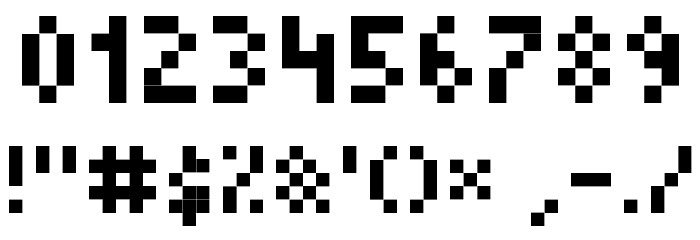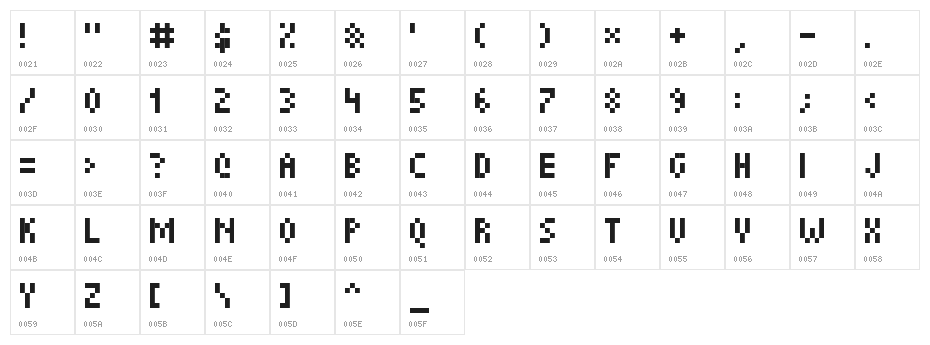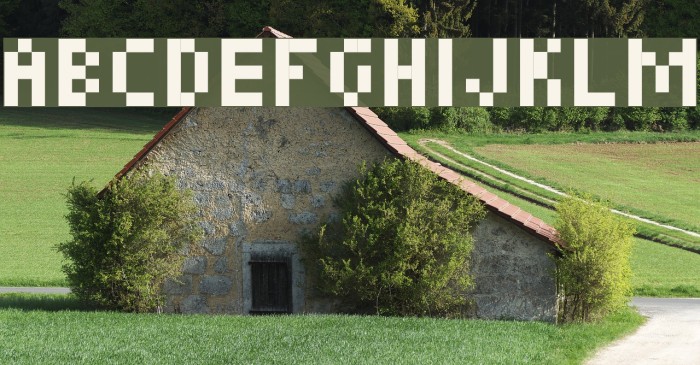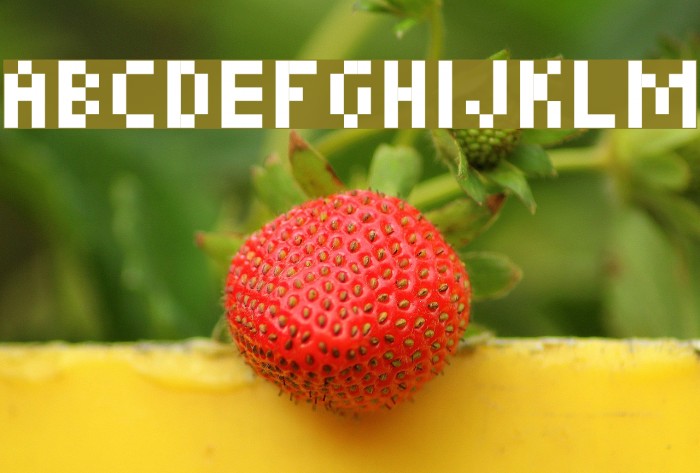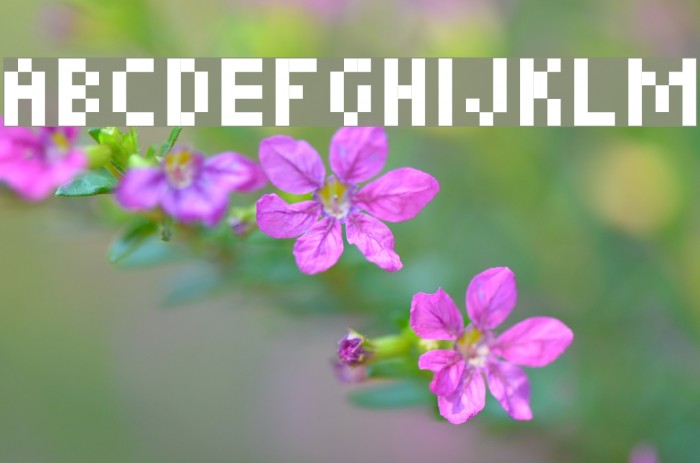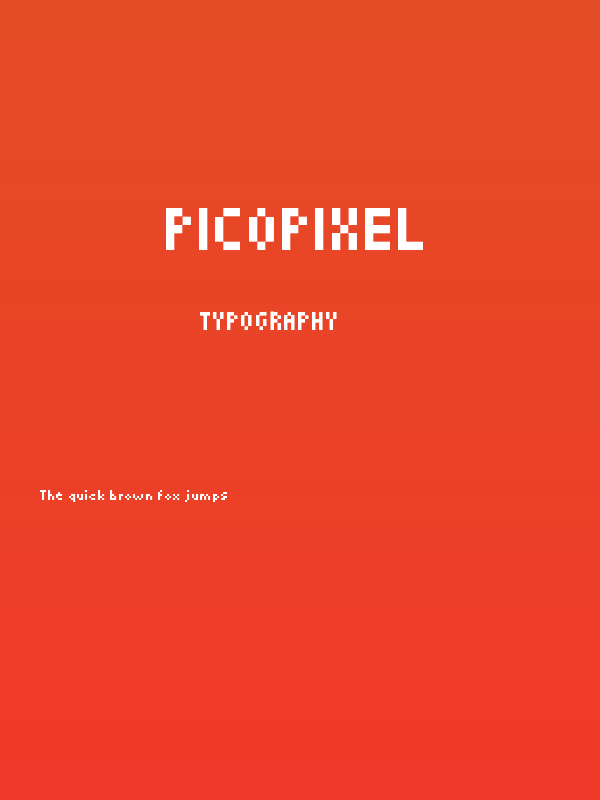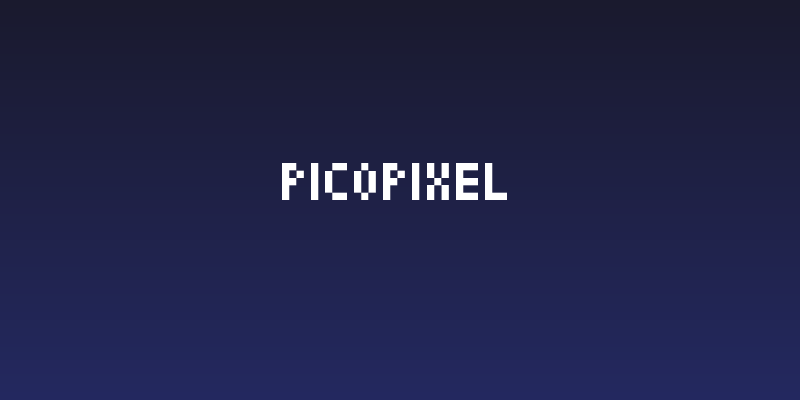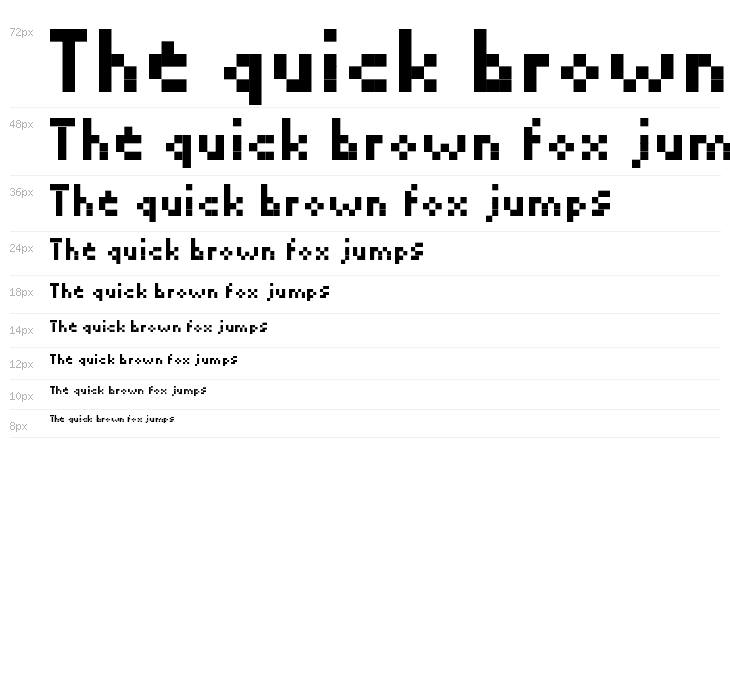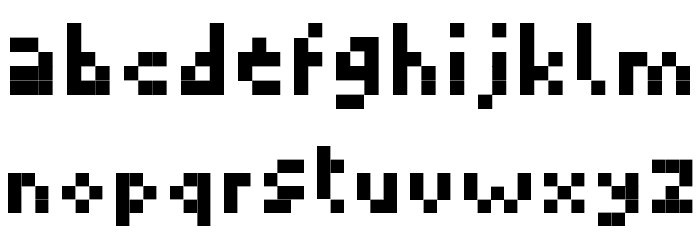
Picopixel Font
Picopixel Description
This font embodies a pixelated, retro aesthetic reminiscent of early digital displays and classic video games. Each character is constructed with a grid-like precision, featuring sharp, blocky edges that create a distinct, nostalgic feel. The uniformity in character height and width contributes to a monospaced appearance, enhancing its digital charm. Despite its simplicity, the font maintains readability and clarity, making it suitable for both display and text purposes. Its geometric structure and lack of curves give it a modern, minimalist look, while the pixelated style adds a touch of vintage appeal.
| Use Case | Headlines, Logos, Digital displays |
| Proposed Projects | Ideal for video game design, digital art projects, retro-themed posters, and any creative work that requires a nostalgic digital touch. |